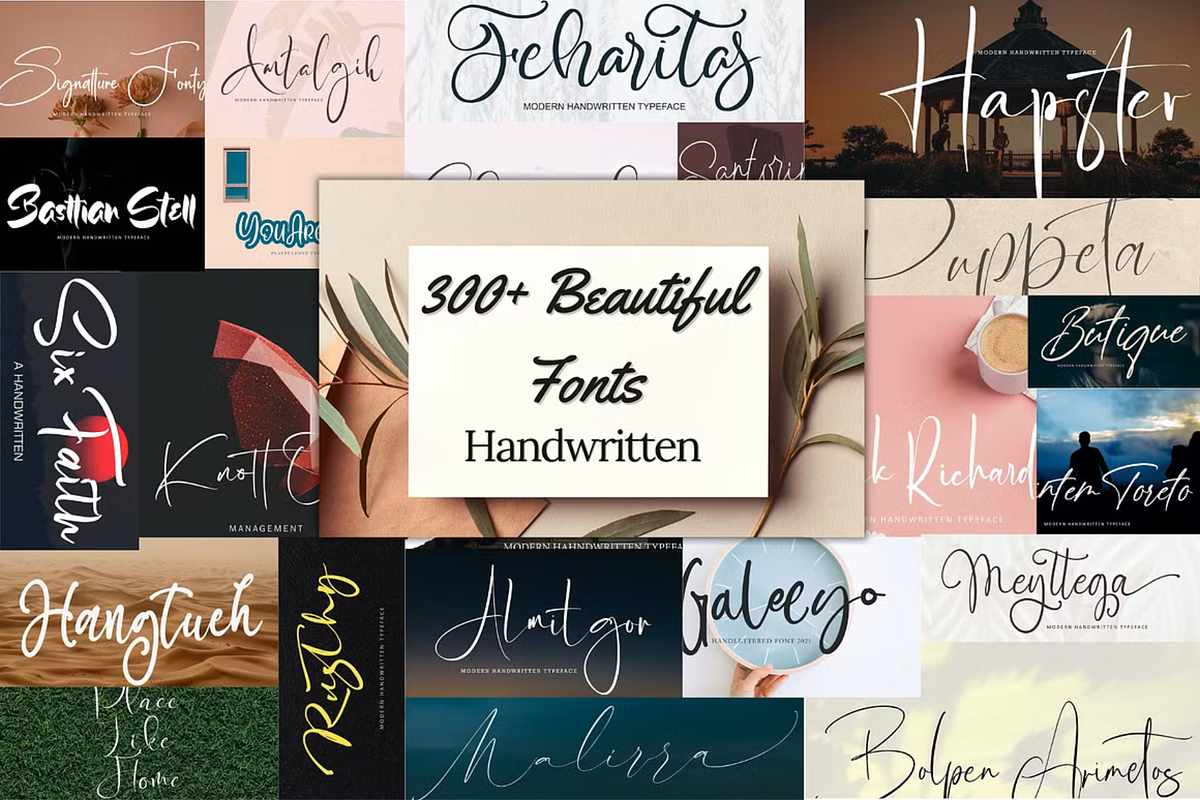
300+ Modern Handwritten Script Fonts is perfect for wedding invitation design, personal branding projects, romantic greeting cards, handcrafted business materials, intimate blog headers, authentic social media graphics, personal stationery design, artisanal product labels, heartfelt marketing campaigns, creative portfolio projects, signature logo designs, and genuine communication materials.
300+ Modern Handwritten Script Fonts is exciting because it offers an unprecedented collection of over 300 carefully curated handwritten script typefaces that provide unlimited creative possibilities for designers seeking authentic personal expression and contemporary calligraphy aesthetics. This massive font library features diverse handwriting styles ranging from elegant formal scripts to casual everyday writing, each crafted to capture the natural beauty and personal touch of genuine handwritten communication. The collection's extraordinary variety ensures perfect matches for any project requiring authentic handwritten appeal and personal character.
300+ Modern Handwritten Script Fonts includes comprehensive font families: Classic Formal Scripts, Casual Everyday Writing, Elegant Wedding Styles, Modern Brush Letters, Vintage Calligraphy, Contemporary Signatures, Feminine Delicate Scripts, Bold Confident Writing, Playful Fun Styles, Professional Business Scripts, Artistic Creative Fonts, Romantic Love Letters, Minimalist Clean Writing, Decorative Ornamental Scripts, Textured Handmade Effects, and Special Handwritten Symbols, providing unlimited creative solutions for authentic handwritten design needs.
This extraordinary typography collection transforms digital communications into personal handwritten experiences through its massive variety of authentic script aesthetics and contemporary calligraphy styles. 300+ Modern Handwritten Script Fonts Free Download enables designers and creative professionals to access the world's largest premium handwritten script collection that instantly adds authenticity, personality, and handcrafted appeal to any creative project. The collection's incredible diversity ensures perfect font selections while maintaining consistent quality and distinctive handwritten character across all 300+ styles.
Wedding planners, personal brands, and artisanal businesses trust 300+ Modern Handwritten Script Fonts for its ability to communicate authenticity, personality, and handcrafted quality to audiences seeking genuine personal connections and authentic handwritten experiences. The typeface collection's extensive variety performs beautifully across various applications, from intimate personal communications to large-scale authentic marketing campaigns. Its comprehensive character support includes multilingual capabilities and handwritten design elements that enhance personal brand presentations.
The creative philosophy behind 300+ Modern Handwritten Script Fonts celebrates the irreplaceable value of human touch and personal expression in our digital age, providing designers with an unmatched resource for authentic handwritten communication. This authenticity-focused approach creates a font collection that feels genuinely personal while maintaining contemporary relevance across different handwritten contexts and authentic brand expressions.
Whether creating personal brand identities, intimate wedding materials, or authentic marketing campaigns, this massive script collection delivers exceptional results that connect with audiences through genuine handwritten charm. Download 300+ Modern Handwritten Script Fonts today and discover how the world's largest premium handwritten script collection can transform your design projects into authentic expressions of personal character, handcrafted beauty, and the timeless appeal of genuine handwritten communication.